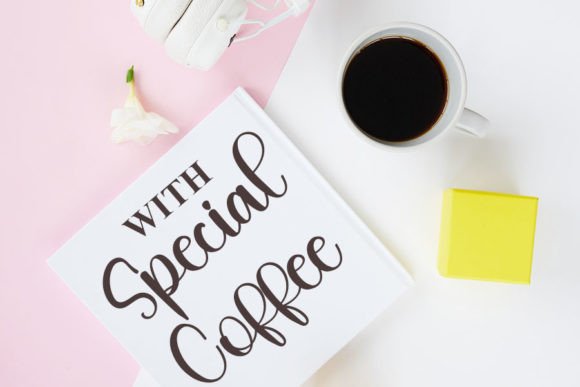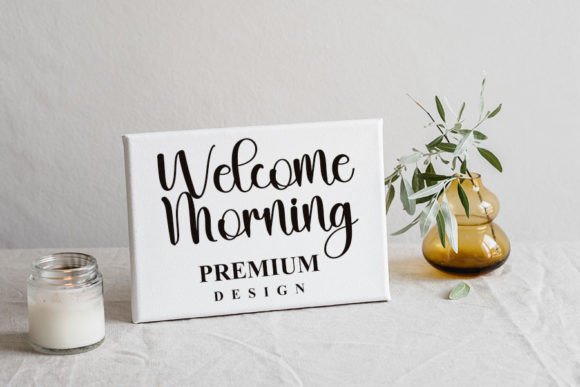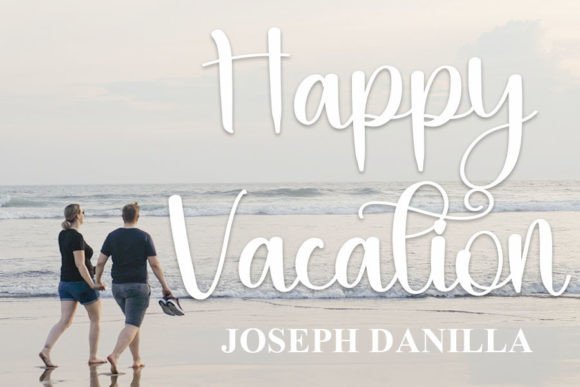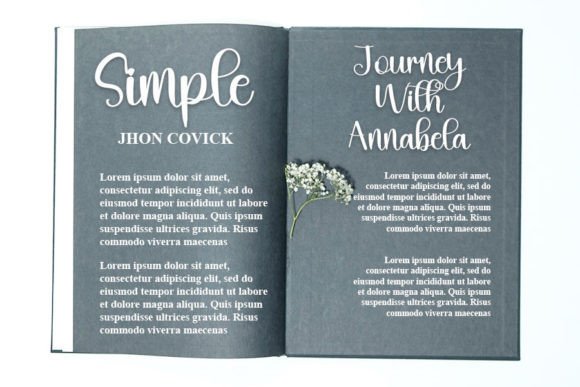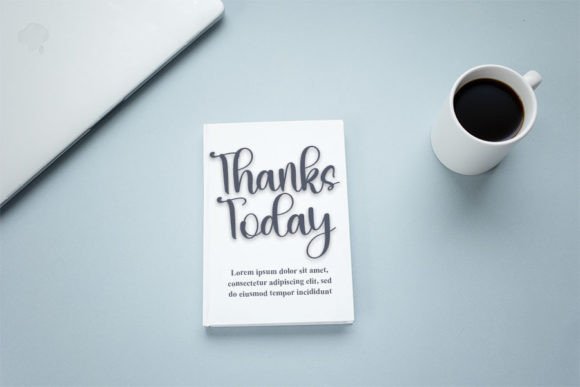
Saturday Font
About Saturday Font
Bring a touch of elegance and artistic flair to your designs with the Saturday Font download, a stylish handwritten script that blends timeless calligraphy with modern design principles. Perfectly balanced and subtly varied, Saturday offers a handcrafted touch that makes every word feel special.
Crafted for designers who appreciate refined curves and fluid strokes, this font is ideal for branding, product packaging, logos, invitations, blog headers, and more. The graceful flow of its characters evokes both charm and professionalism, making it suitable for both casual and formal uses.
Designed for Versatility and Impact
The Saturday Font stands out due to its sophisticated form and clean finish. Whether you’re creating a logo for a boutique business or crafting a romantic wedding invitation, this font adapts effortlessly to your project’s tone.
Perfect for:
• Wedding invitations and save-the-date cards
• Fashion brand logos and editorial spreads
• Personal blog headers and YouTube channel art
• Elegant product labels and packaging
• Instagram quotes and social media posts
• Greeting cards and stationery
• Handmade craft products or Etsy listings
Its modern charm and handcrafted feel give every design a human touch while still maintaining legibility and professionalism.
• Full upper and lowercase characters
• Numerals and punctuation
• Ligatures and alternates for stylistic variation
Add Elegance to Your Creative Projects
The delicate yet confident strokes of the Saturday Font make it a favorite for modern designers looking to elevate their typography. Its naturally flowing characters convey both luxury and warmth, ensuring your message is delivered with style.
Whether you’re creating a heartfelt message or designing a sophisticated brand identity, Saturday Font download will help your words stand out beautifully.
Make your next design project more polished and visually striking with the Saturday Font download. Elegant, modern, and versatile, this typeface will quickly become one of your go-to choices for handwritten style with a professional edge.